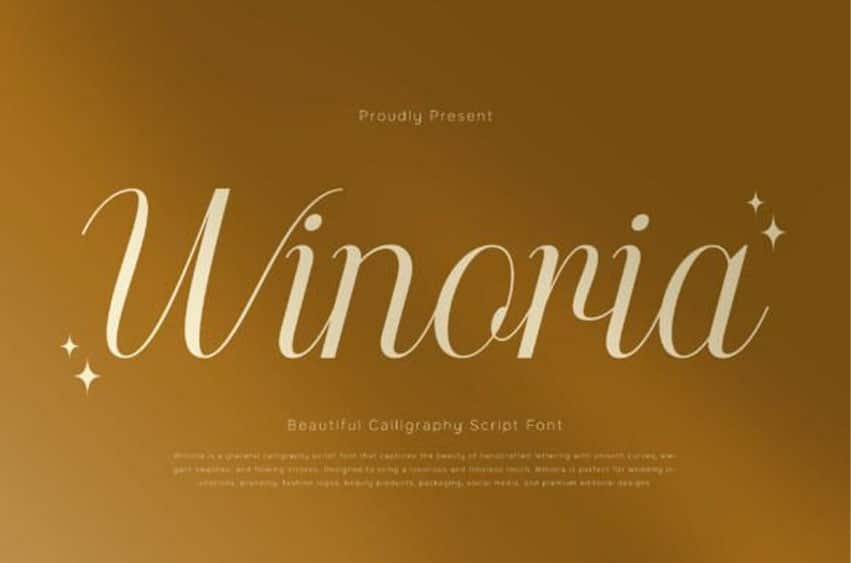
Winoria Font is an elegant calligraphy script font that captures the beauty of handwritten artistry with effortless sophistication. Flowing gracefully across every letter, Winoria features delicate strokes, smooth connections, and refined curves that create a timeless expression of elegance.
Its luxurious handwritten style brings warmth, romance, and authenticity, making every word feel beautifully personal and unforgettable.